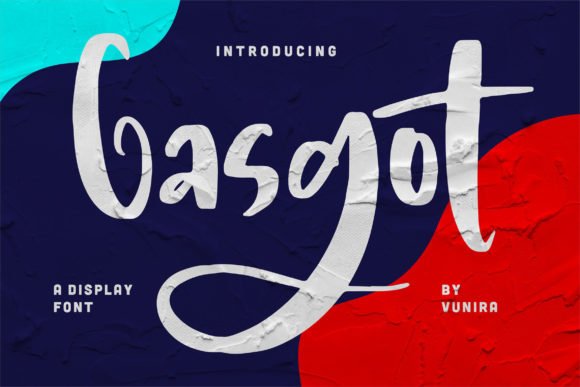
Introduction to Gasgot Font
Gasgot is a casual and bold handwritten font, crafted to give your headlines and logotype projects a stylish touch.
This font reads as strong, confident, and dynamic and can add tons of nostalgic character to your designs .